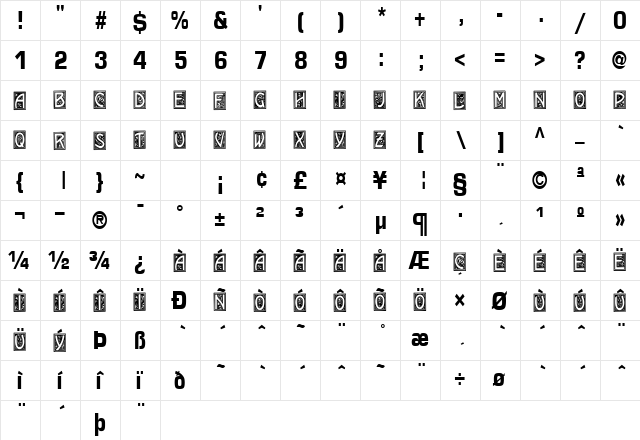
CarnegieWay32 Regular Font Preview
CarnegieWay32 Regular
CarnegieWay32 Regular Font Details
Design Context for CarnegieWay32 Typeface
CarnegieWay32 is a composed and adaptable typeface that performs quietly and consistently across a wide range of design contexts.